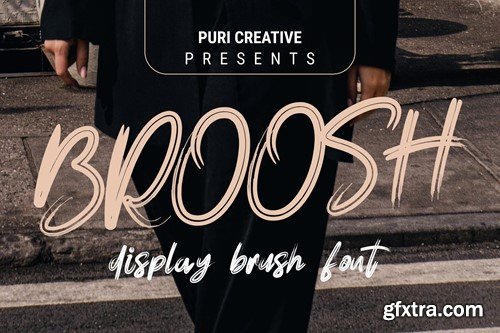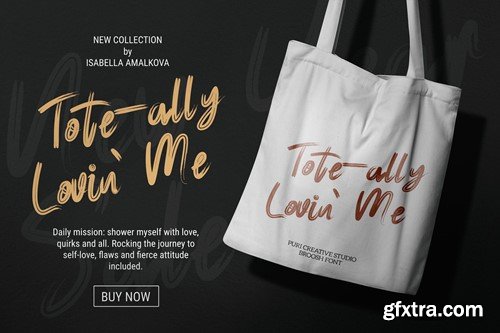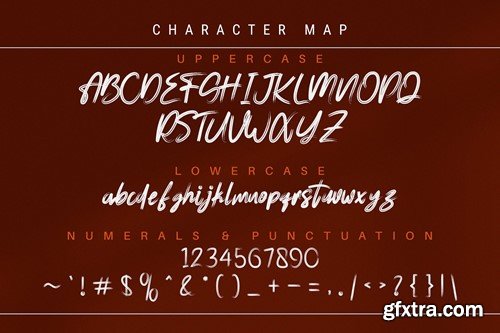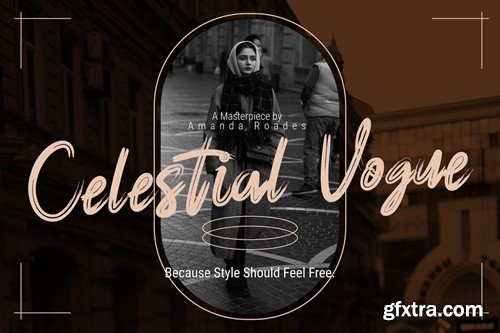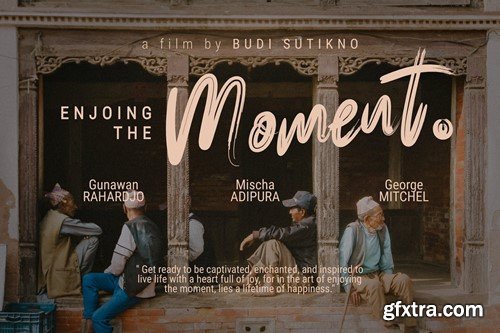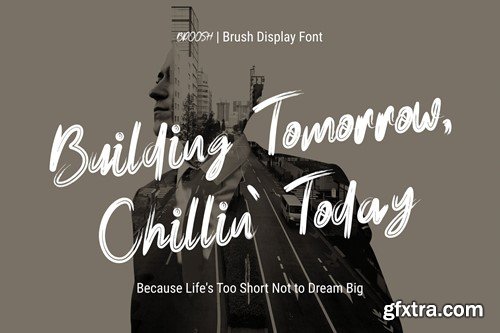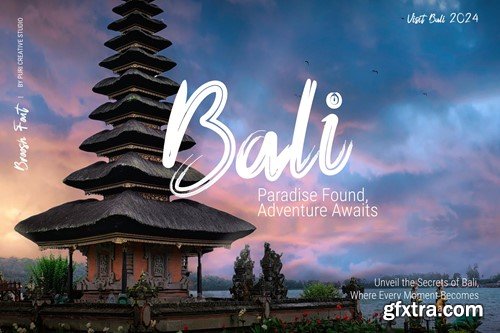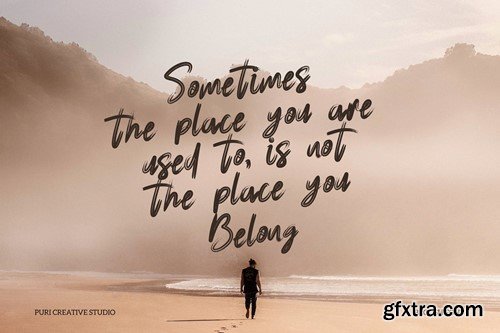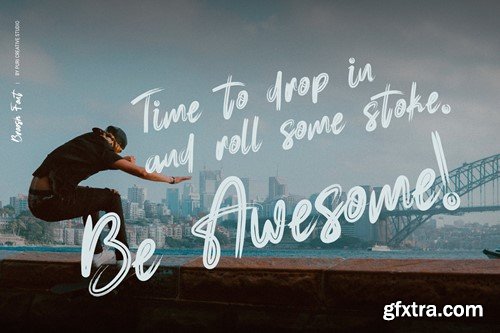
Broosh - Display Brush Font
Hello! introducing our new font "BROOSH". A quick handwriting font, BROOSH made with a Brush Pen. BROOSH is a display brush Font which has many purpose and suitable for movie, movie poster, modern, poster, advertising and much more. Features : We highly recommend to access all OpenType Stylistic, you need a program that supports OpenType features such as Adobe Illustrator, Adobe Photoshop, CorelDraw and Microsoft word. Thank you.